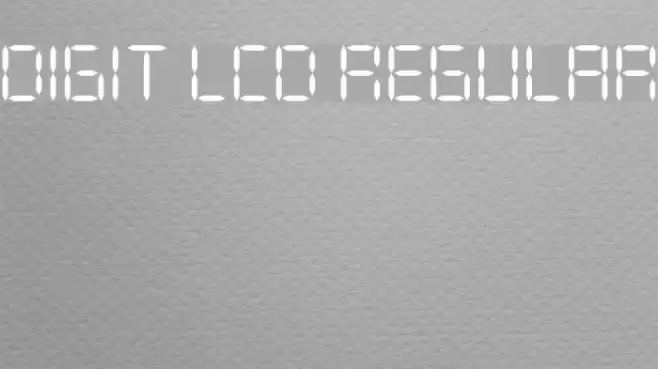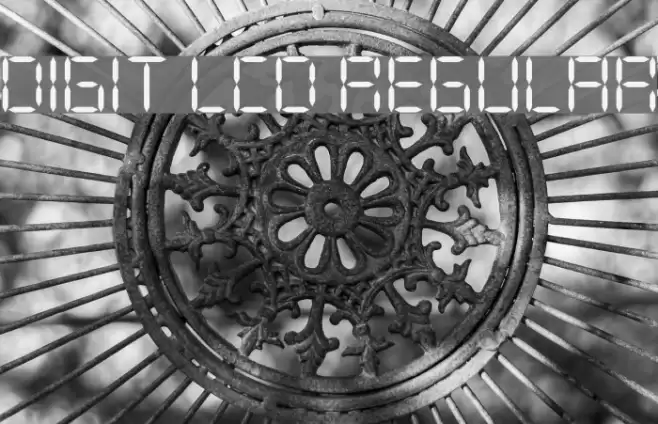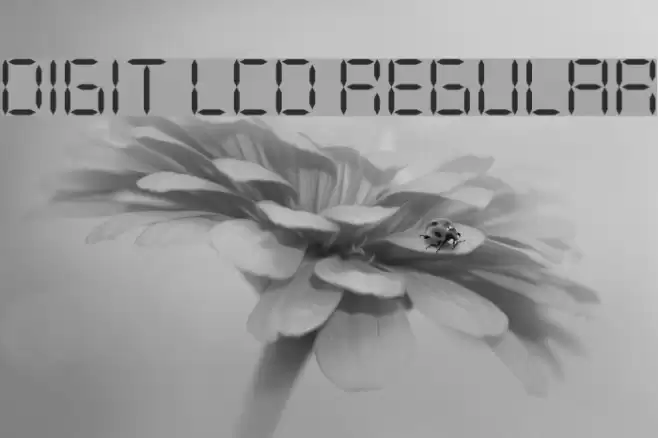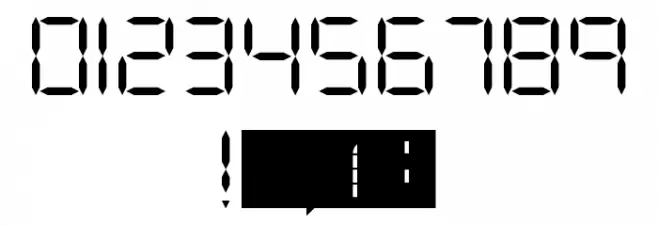
DIGIT LCD Regular Font
DIGIT LCD Regular Description
This font is inspired by the classic digital displays found on LCD screens, characterized by its segmented, geometric style. Each character is composed of straight lines and angles, mimicking the appearance of numbers and letters on digital clocks and calculators. The design is highly legible and structured, with a uniform width across all characters, giving it a monospaced feel. The font's simplicity and clarity make it ideal for conveying information in a straightforward manner, reminiscent of retro technology aesthetics.
A segmented, geometric font inspired by classic LCD digital displays from Uncategorized fonts.
- Proposed Projects: Ideal for digital-themed projects, retro designs, tech-related branding, and any application requiring a digital or futuristic look.
- Use Case: Headlines, Digital displays, Tech branding